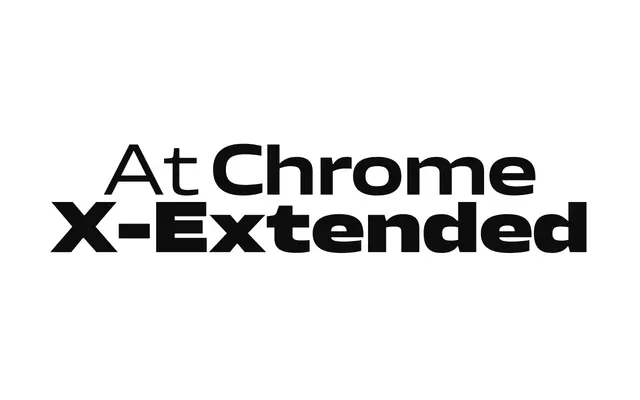
At Chrome X-Extended
Arillatype · Pedro Arilla, Julián Moncada · 2026
At Chrome X-Extended specimen from Arillatype
An extended-width geometric sans from Arillatype, spanning nine weights with a dedicated Retina cut for high-density screens.
Part of the broader Chrome superfamily, the X-Extended variant runs from Air to Super across 18 styles, each paired with an italic. A Retina weight sits between Light and Regular, optimised for sharp rendering on high-density displays. Eight stylistic sets cover alternate letterforms for a, f, g, i, j, l, t and y, and the full family includes variable font files alongside conventional desktop and web formats.
A sharp, modern geometric sans with clean construction and high-resolution screen optimisation, sitting within the geometric sans tradition with a warm rather than purely clinical character.